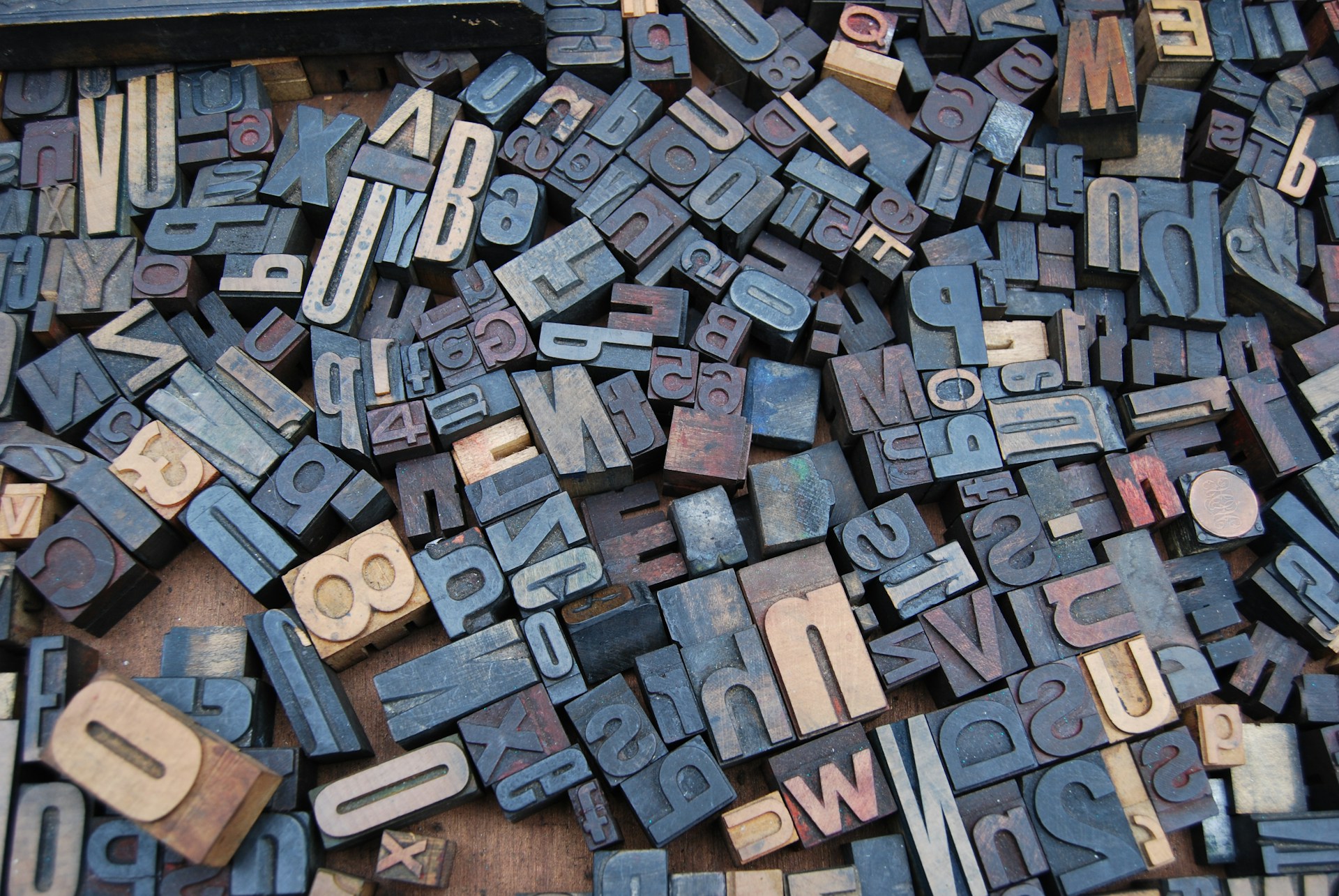
Typography can make or break a design. Whether you're building a website, designing a logo, or creating marketing materials, choosing the right typography pairs can dramatically enhance readability, brand personality, and user experience. In this guide, we'll explore what makes a great font pairing, popular typography pairs, and tips for combining fonts effectively.
Typography pairs, or font pairings, refer to two different fonts used together in a single design. A successful typography pair creates contrast and harmony, guiding the reader's eye while reinforcing the design's message and tone.
Common pairings include:
Effective font pairing:
Bad font pairing can cause confusion, make content hard to read, and dilute the brand message.
Typography pairing is a powerful yet often overlooked aspect of design. The right combination of fonts can create visual interest, improve readability, and solidify your brand's personality. Use the examples and tips above to craft your own perfect typography pairs and take your designs to the next level.